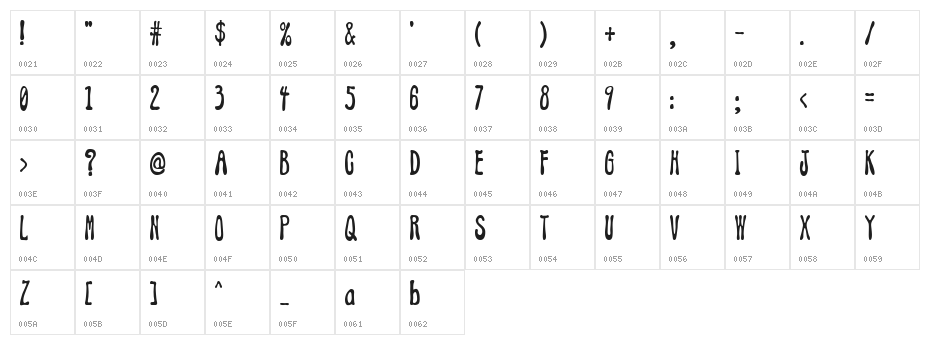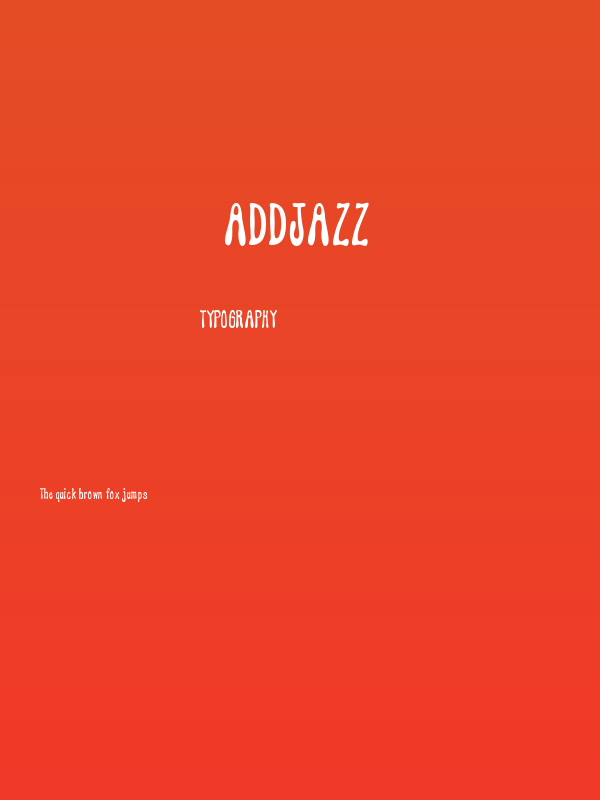
AddJazz Font
AddJazz Description
This font features a playful and dynamic style with a whimsical touch. The characters are bold and rounded, giving off a lively and energetic vibe. The uppercase and lowercase letters maintain a consistent flow, while the numbers and special characters complement the overall aesthetic. The font's unique personality makes it stand out, with its slightly irregular shapes adding to its charm. It's perfect for projects that require a fun and engaging look, such as children's books, playful branding, or creative posters. The font's design is both approachable and distinctive, making it versatile for various creative applications.